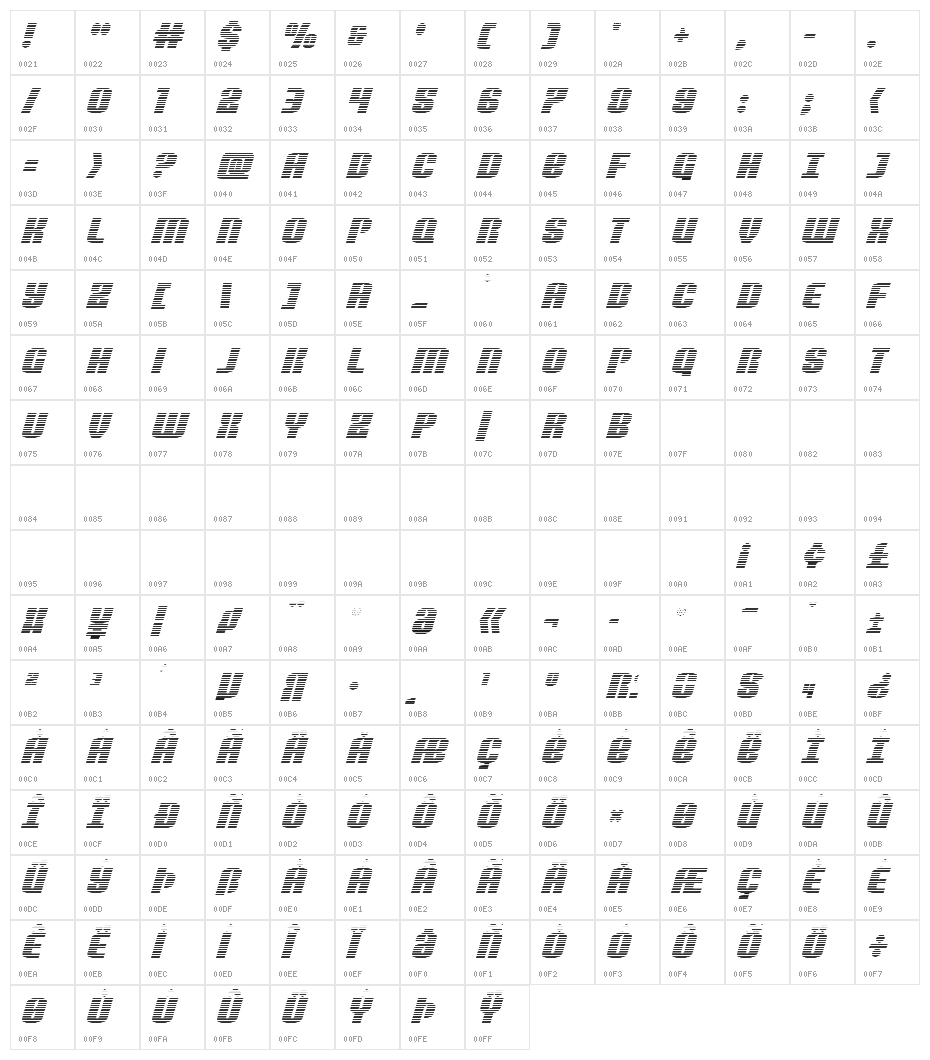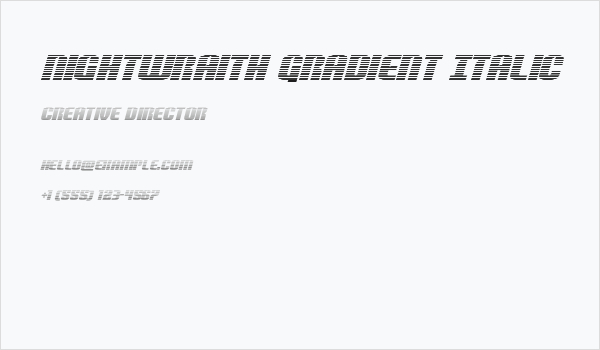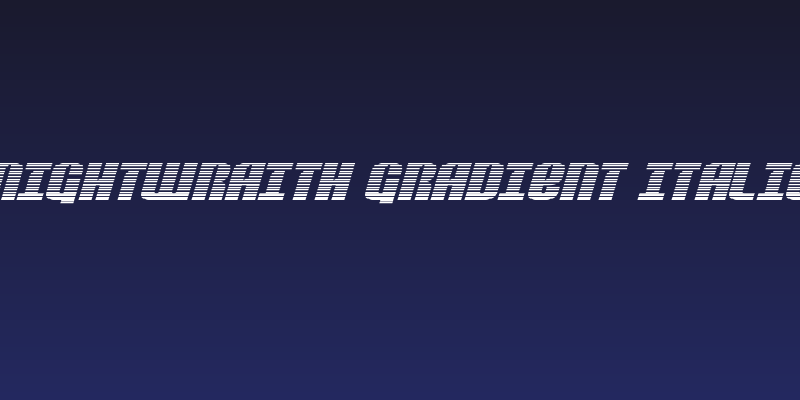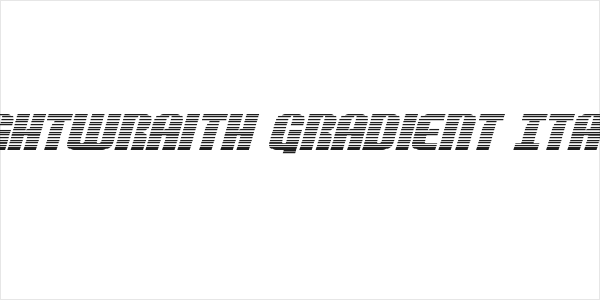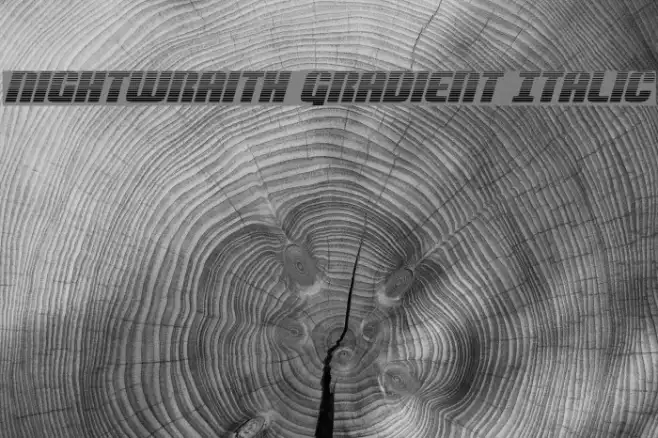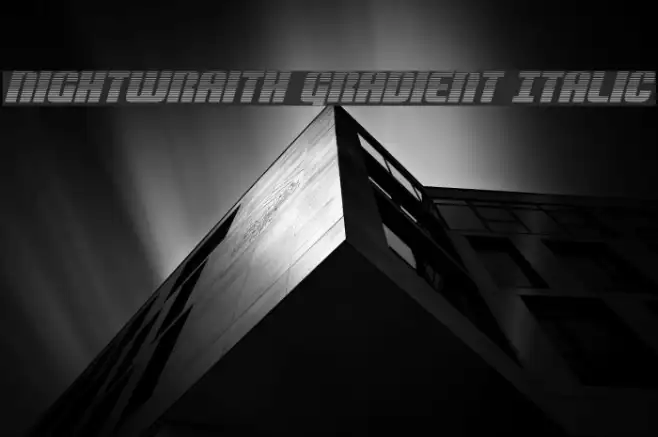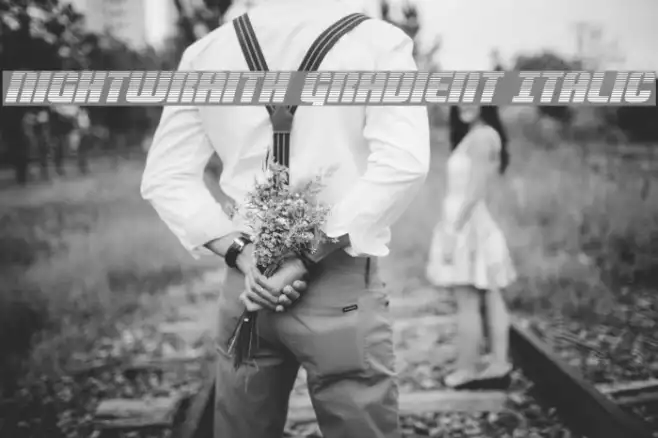
Nightwraith Gradient Italic Font
Nightwraith Gradient Italic Description
This font features a bold, italicized style with a unique gradient effect created by horizontal lines running through each character. The design gives a sense of movement and modernity, making it stand out in any application. The uppercase and lowercase letters maintain a consistent width, contributing to a cohesive look. The numerals and special characters are designed with the same gradient effect, ensuring uniformity across all elements. This font's distinct appearance is ideal for projects that require a futuristic or dynamic aesthetic.
| Proposed Projects | Ideal for futuristic designs, tech-related branding, video game titles, and dynamic posters. |